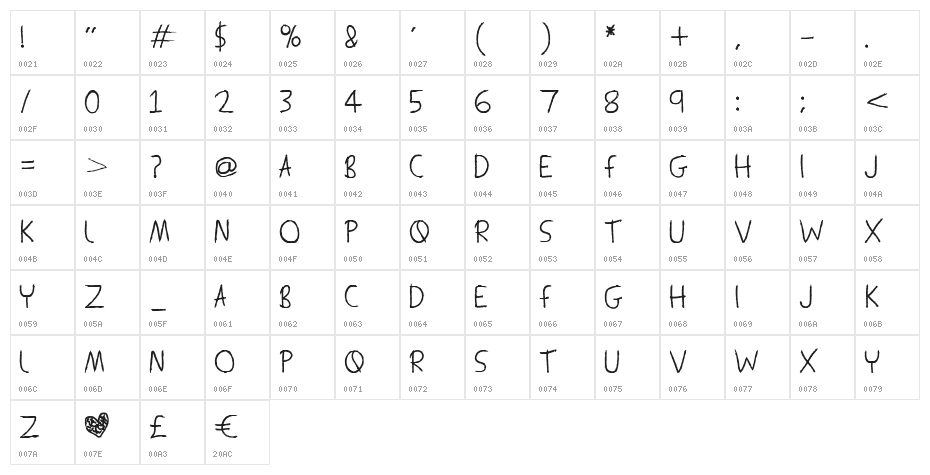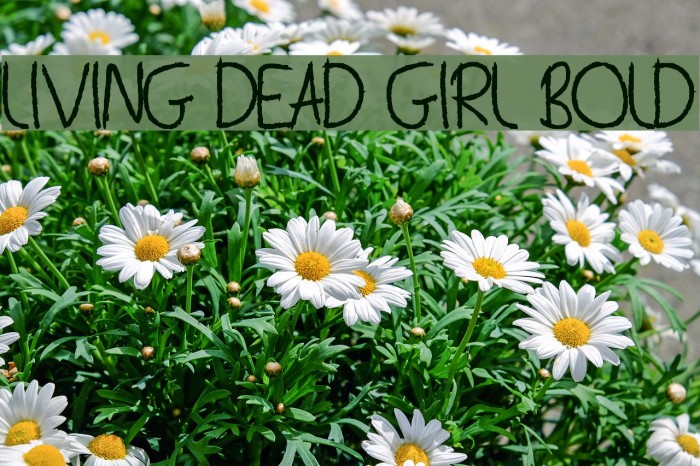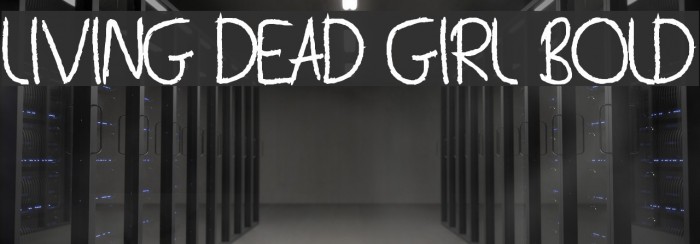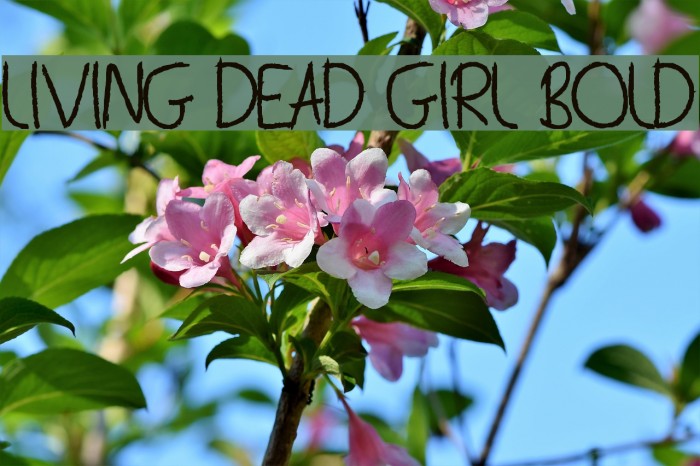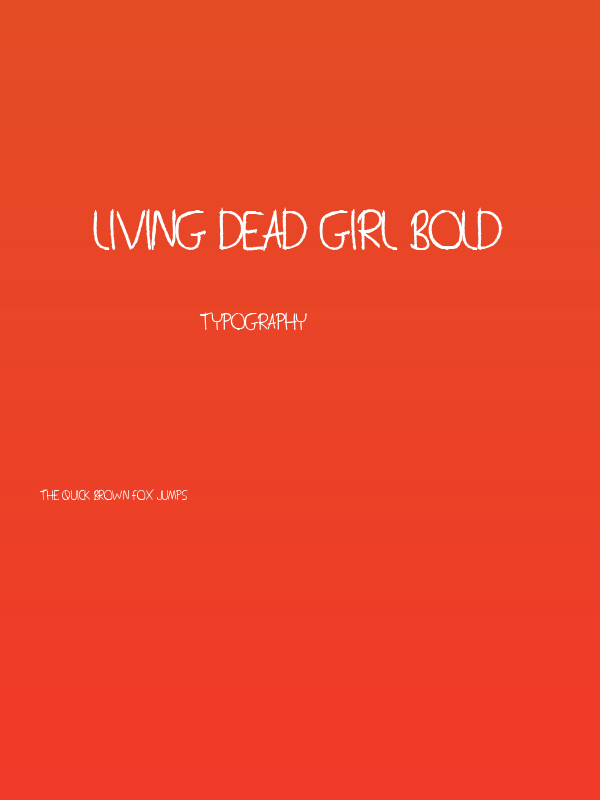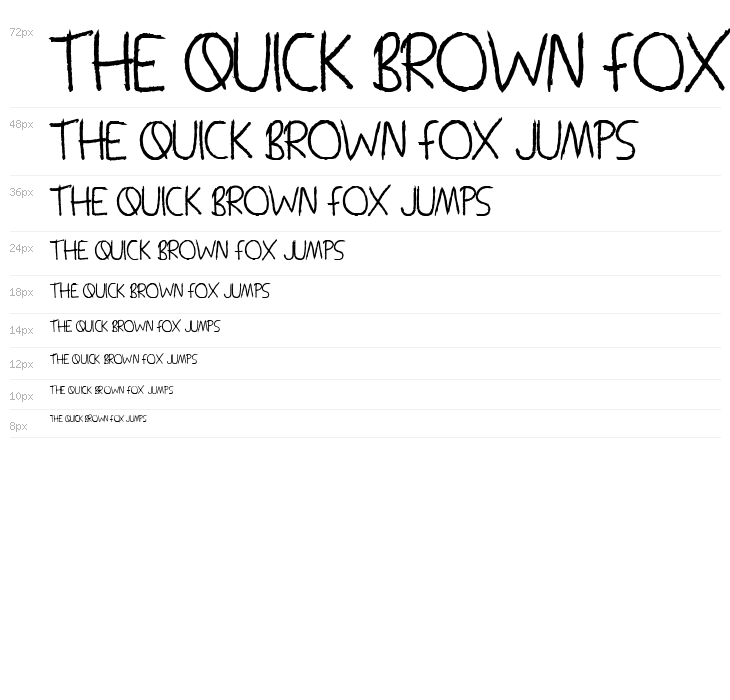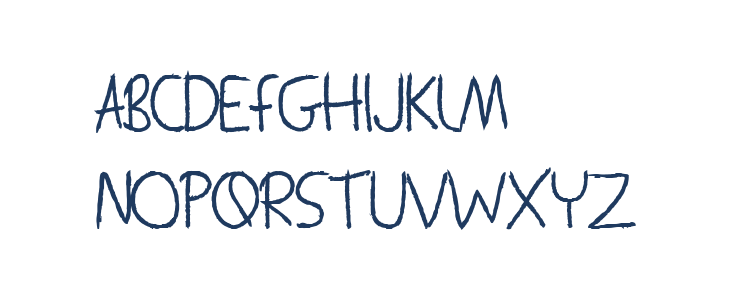
Living Dead Girl Bold Font
Living Dead Girl Bold Description
This font features a bold, hand-drawn style with a rough, textured appearance. The letters have an irregular, slightly jagged edge that gives them a raw and edgy feel. The uppercase and lowercase characters maintain a consistent style, with the uppercase letters being slightly larger and more pronounced. Numbers and special characters follow the same aesthetic, ensuring a cohesive look across all glyphs. The strokes are uneven, adding to the hand-crafted look, and the overall design is reminiscent of graffiti or street art, making it ideal for projects that require a bold and unconventional typeface.
| Proposed Projects | Ideal for album covers, posters, street art designs, and any project requiring a bold, edgy typeface. |